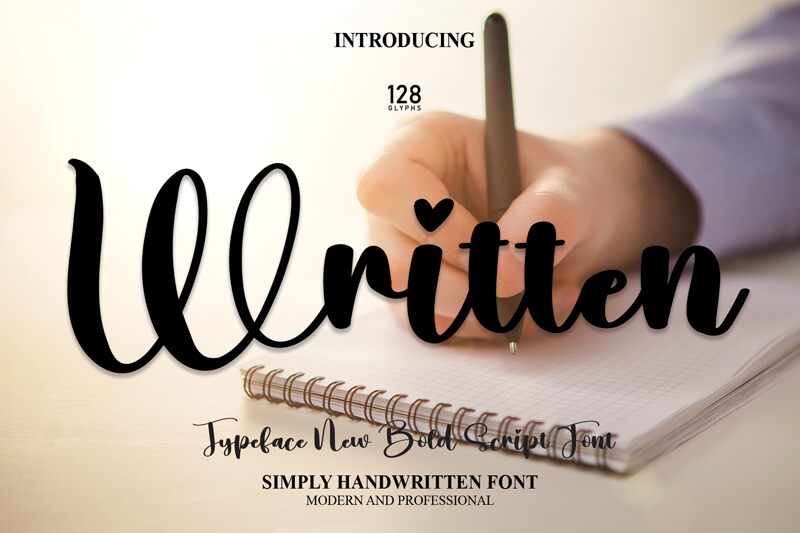
Written
Written, a charming creation by Scratchones, is a delightful font that exudes a whimsical and playful vibe. Its cute handwritten style adds a touch of innocence and creativity to any project.
With its smooth curves and carefully crafted letterforms, this font is perfect for children's book covers, birthday invitations, and greeting cards. Its versatility shines through in projects such as scrapbooking, DIY crafts, or even personalized stationery. Whether you're looking to add a touch of sweetness to your blog headers or create captivating social media graphics, Written is your go-to font for all things adorable and endearing.